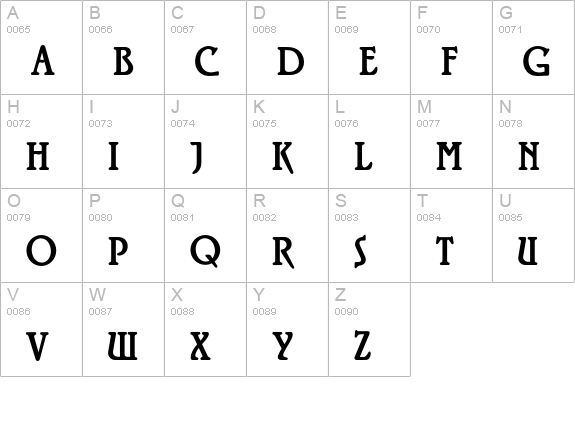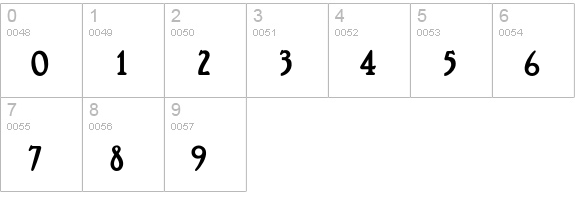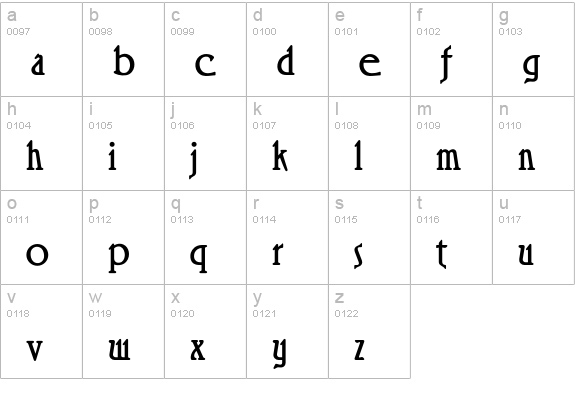
Signora Font Details
Signora font is a stunning typeface that exudes elegance and sophistication. It is the perfect choice for adding a touch of class to any design project. With its graceful curves and delicate letterforms, Signora font captures the essence of timeless beauty. This font is not only visually appealing but also incredibly versatile. It can be used for a wide range of applications, including branding, packaging, invitations, and more. Whether you're designing a wedding invitation or creating a logo for a luxury brand, Signora font will elevate your design to new heights. One of the best things about Signora font is that it is free. Yes, you read that right - this incredible font is freely available to download at FontsMarket.com. You don't have to break the bank to add a touch of elegance to your designs. Simply head over to FontsMarket.com and download Signora font to start using it in your projects today. With its timeless beauty, versatility, and affordability, Signora font is a must-have for any designer. Whether you're a professional designer or a hobbyist, this font will help you create stunning and impactful designs. So don't miss out on this amazing opportunity to enhance your design toolbox with Signora font. Download it for free at FontsMarket.com and let your creativity soar.